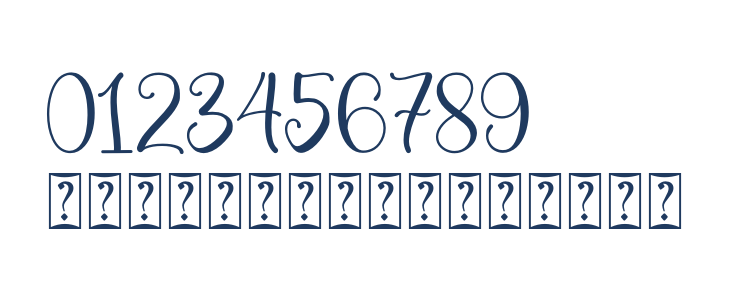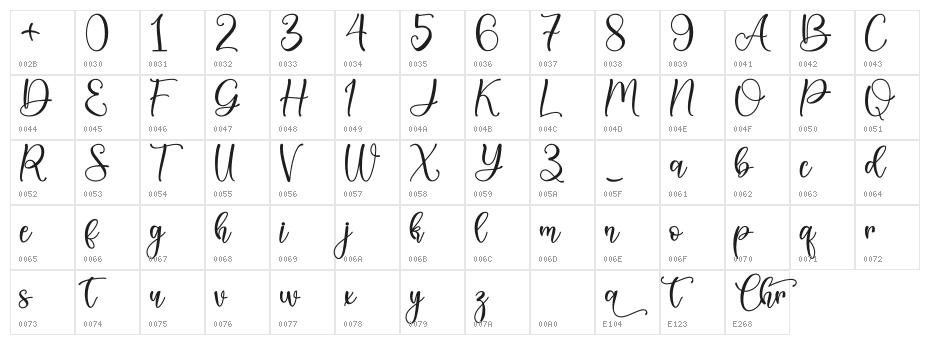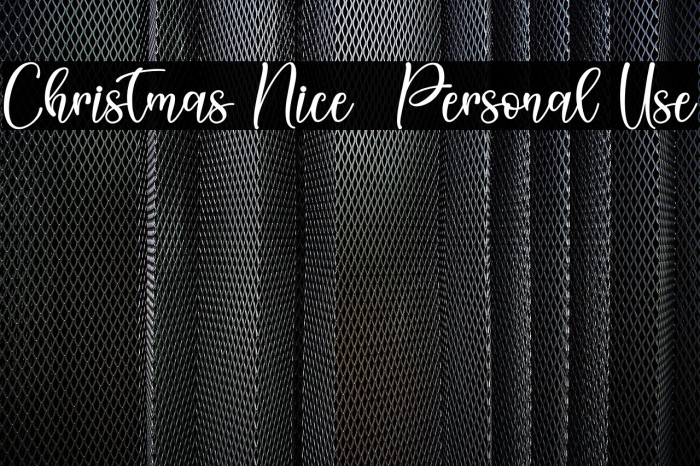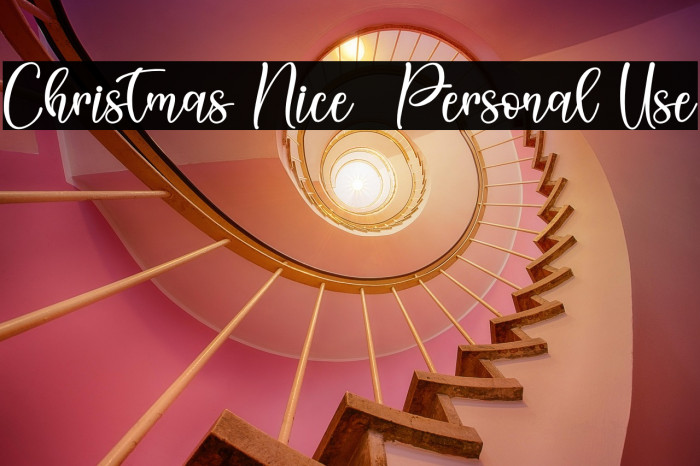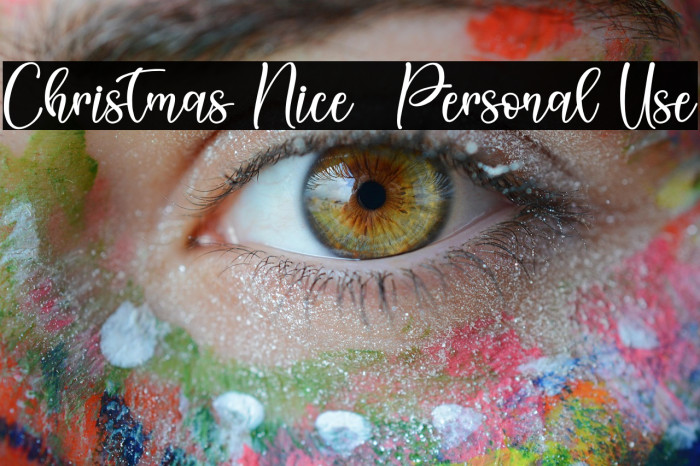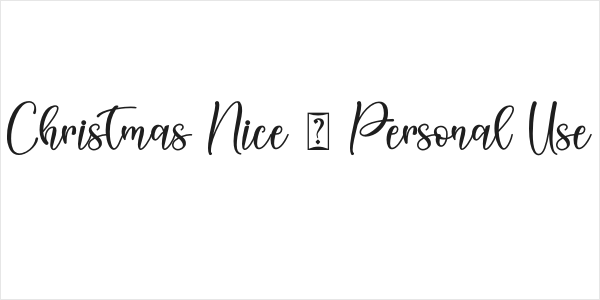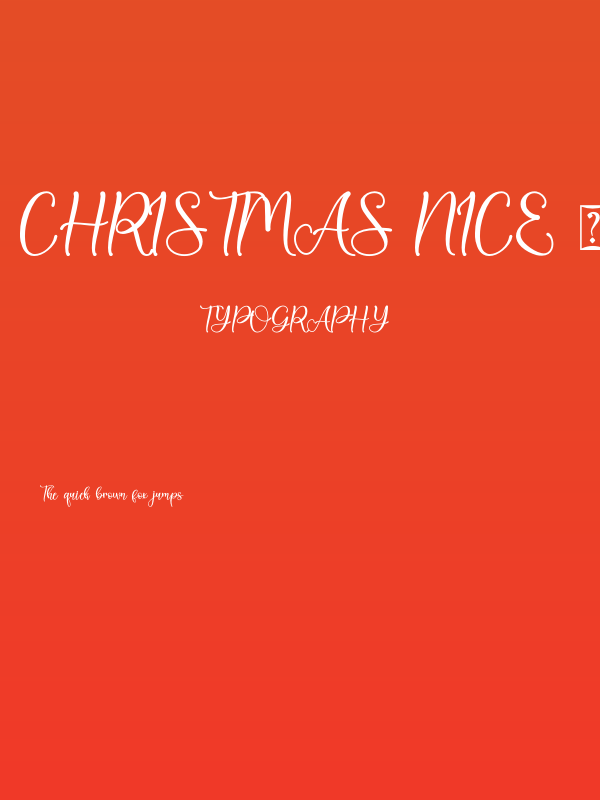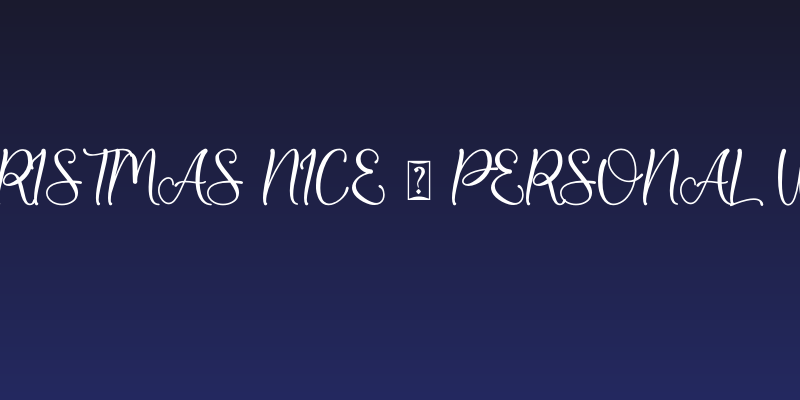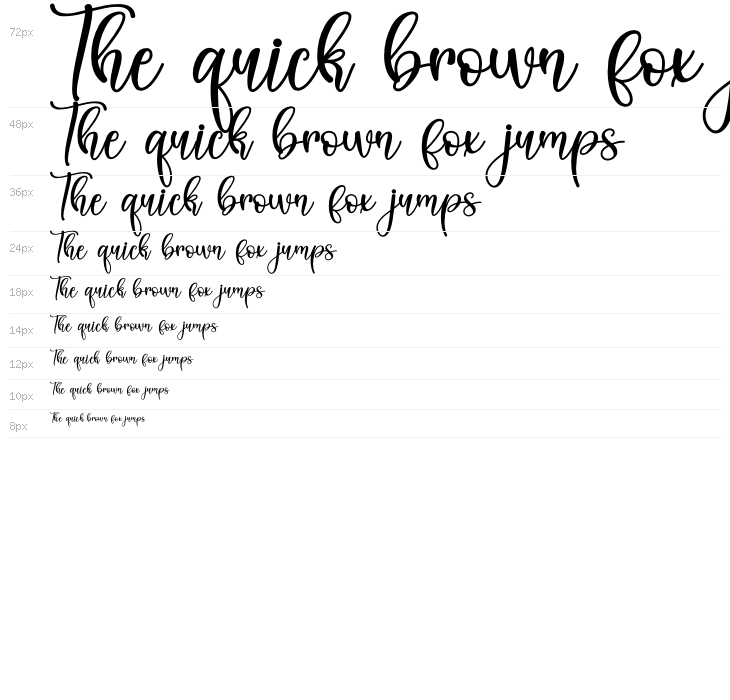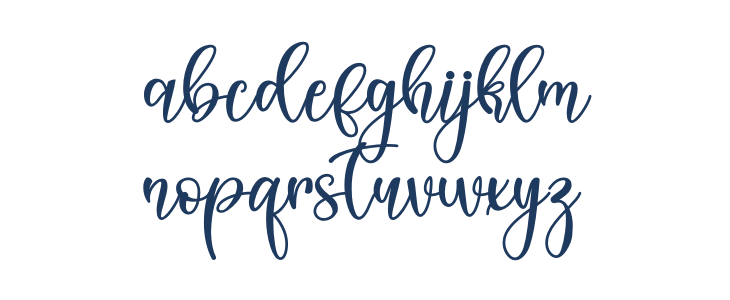
Christmas Nice - Personal Use Font
Christmas Nice - Personal Use Description
This font features a charming and elegant script style with a handwritten appearance. The uppercase letters are gracefully looped and connected, giving a sense of fluidity and movement. The lowercase letters maintain a consistent flow, with some characters having playful swashes that add a touch of whimsy. The numerals are rounded and maintain the same playful style, making them easy to read while still being decorative. This font is perfect for adding a personal touch to any project, with its festive and joyful aesthetic.
| Proposed Projects | Ideal for holiday cards, invitations, festive branding, and decorative signage. |